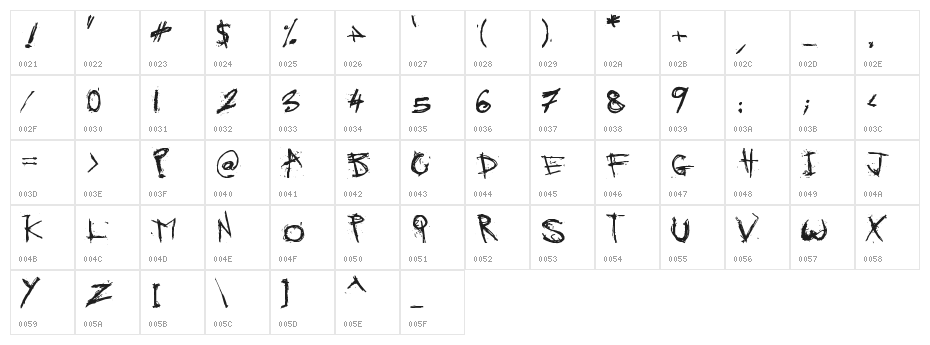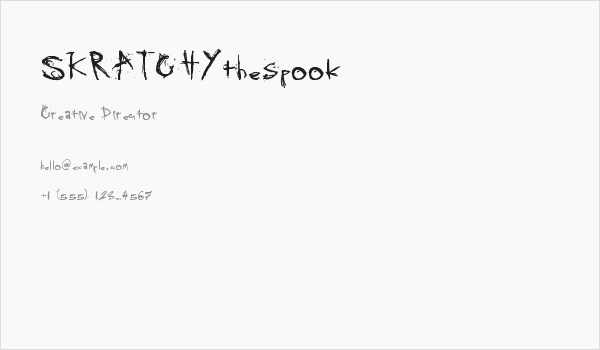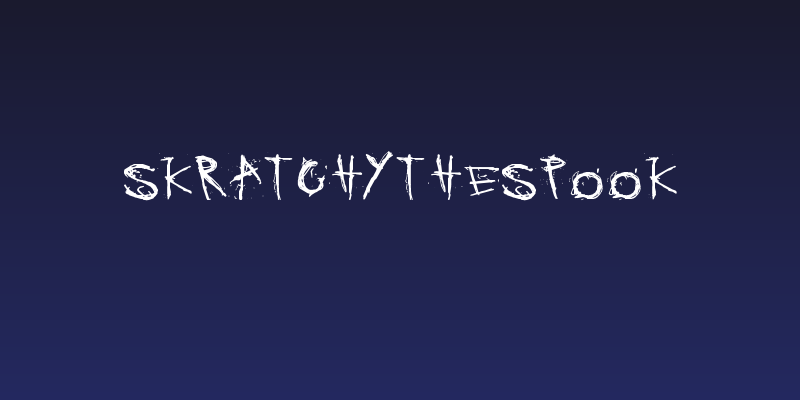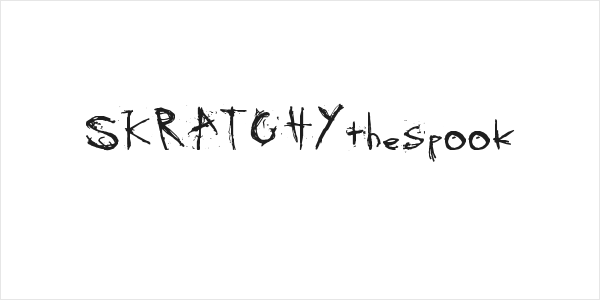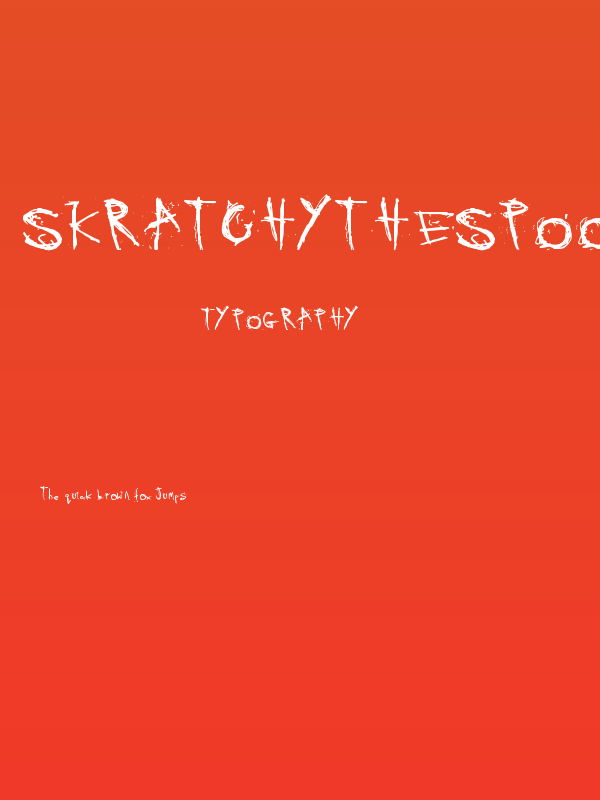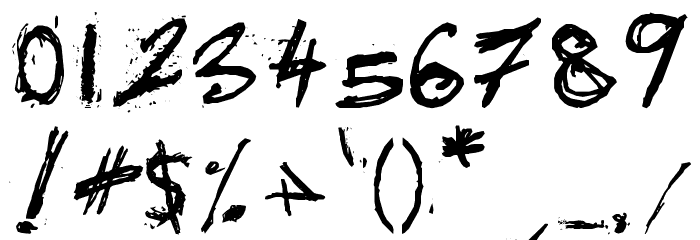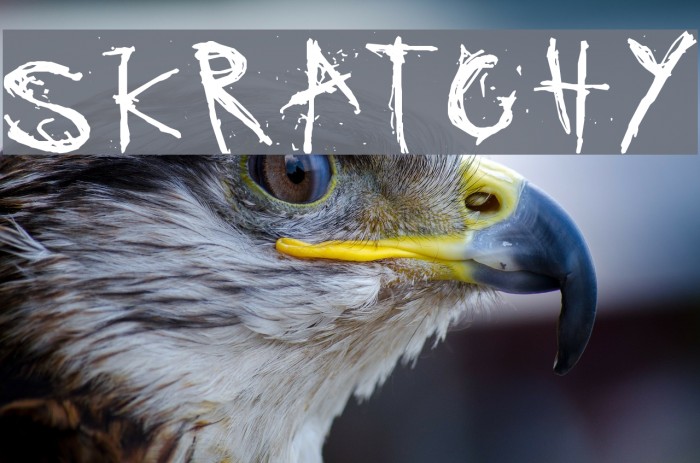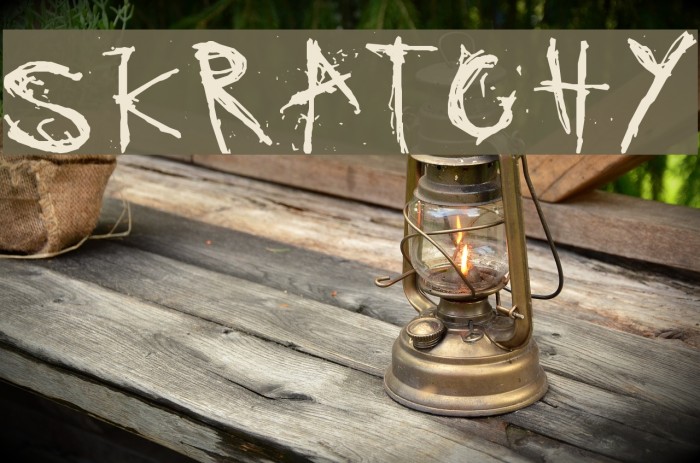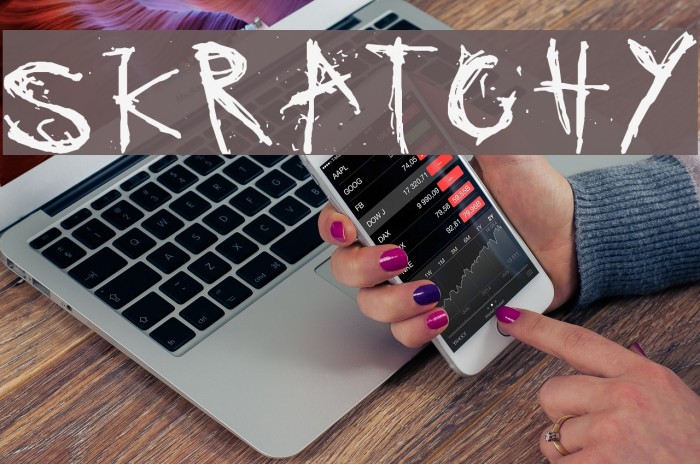
SKRATCHYthespook Font
SKRATCHYthespook Description
This font exudes a raw, edgy aesthetic with its scratchy, uneven strokes and distressed appearance. Each character appears hand-drawn, with irregular lines and a slightly chaotic feel, reminiscent of graffiti or horror-themed designs. The uppercase and lowercase letters maintain a consistent style, with jagged edges and a rough texture that adds to its unsettling charm. Numbers and special characters follow the same design principles, ensuring a cohesive look across all elements. This font is perfect for projects that require a bold, unconventional style with a touch of grunge.
| Proposed Projects | Ideal for horror-themed posters, album covers, edgy branding, or any project needing a grunge or rebellious vibe. |